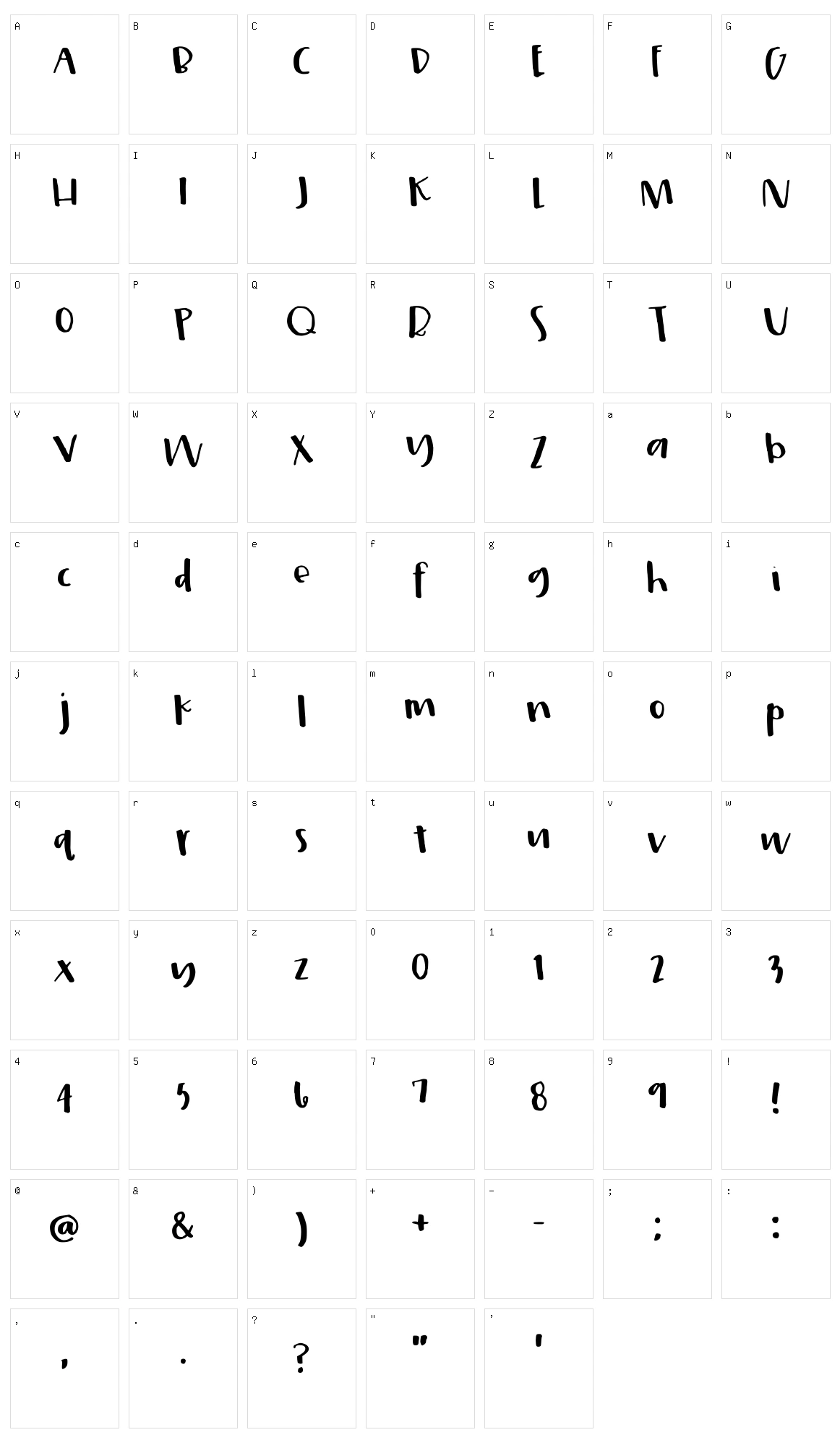
The free font Happy Happy is carefully designed by Erinn Foglesong, showcasing a thoughtful balance of creativity and usability and falls under the Script font style. When you download the ZIP file, it contains only 14.27 KB of font files, making it lightweight and quick to download. Please review the license details below to understand permitted usage and distribution rights. If license information is not available, we recommend using this font for personal projects only or contacting the author directly for commercial usage permissions.